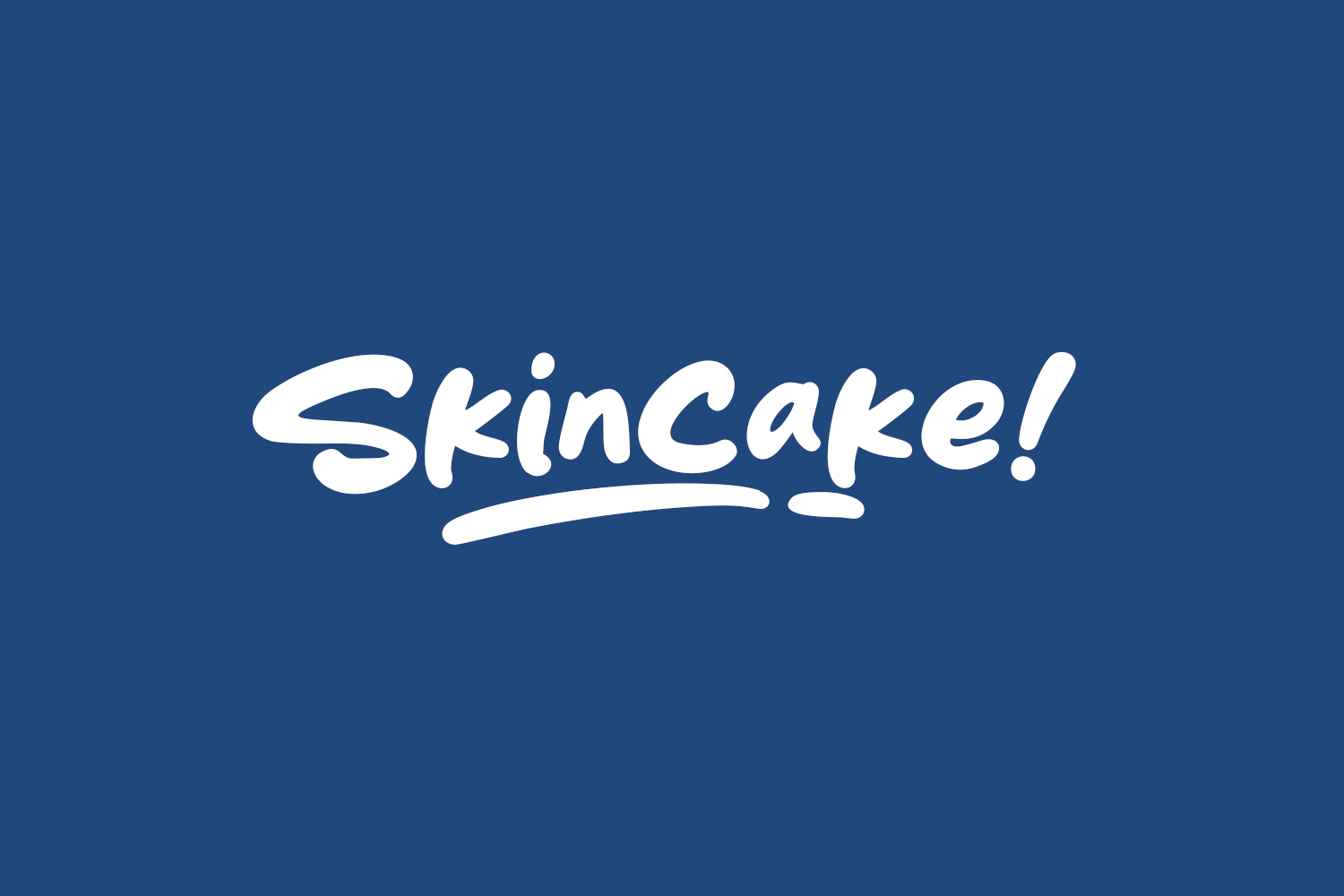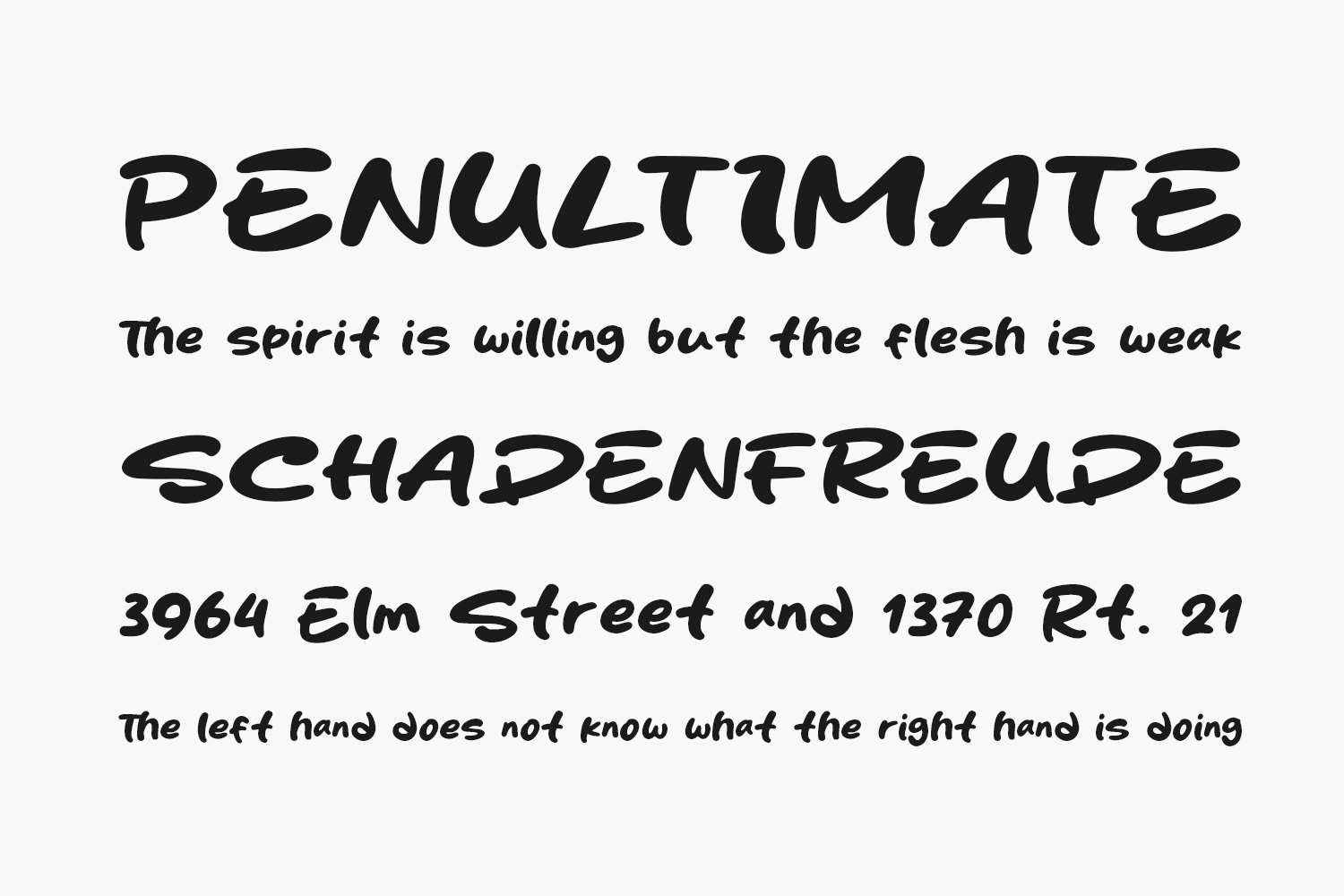
Introducing Skincake Free Font, a contemporary and stylish display font tailored for posters, logos, magazines, book covers, banners, and beyond! Elevate your designs with this exceptional font, adding a touch of sophistication to your creative projects. Its versatility allows it to seamlessly enhance a wide array of design ideas, making them truly stand out. Unlock the potential of your creativity with the unique charm of Skincake. Download the font for free if you need it for personal or commercial use.